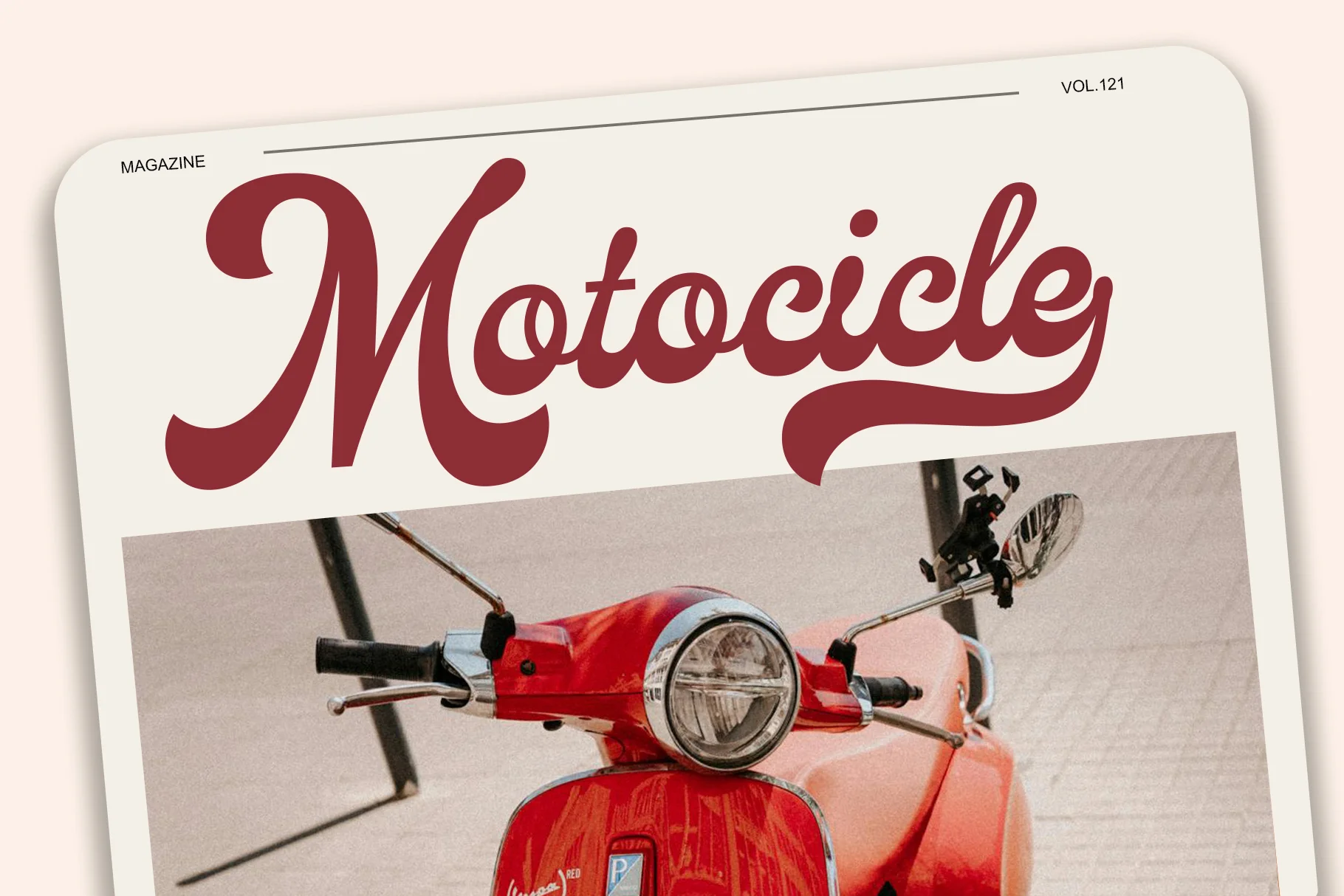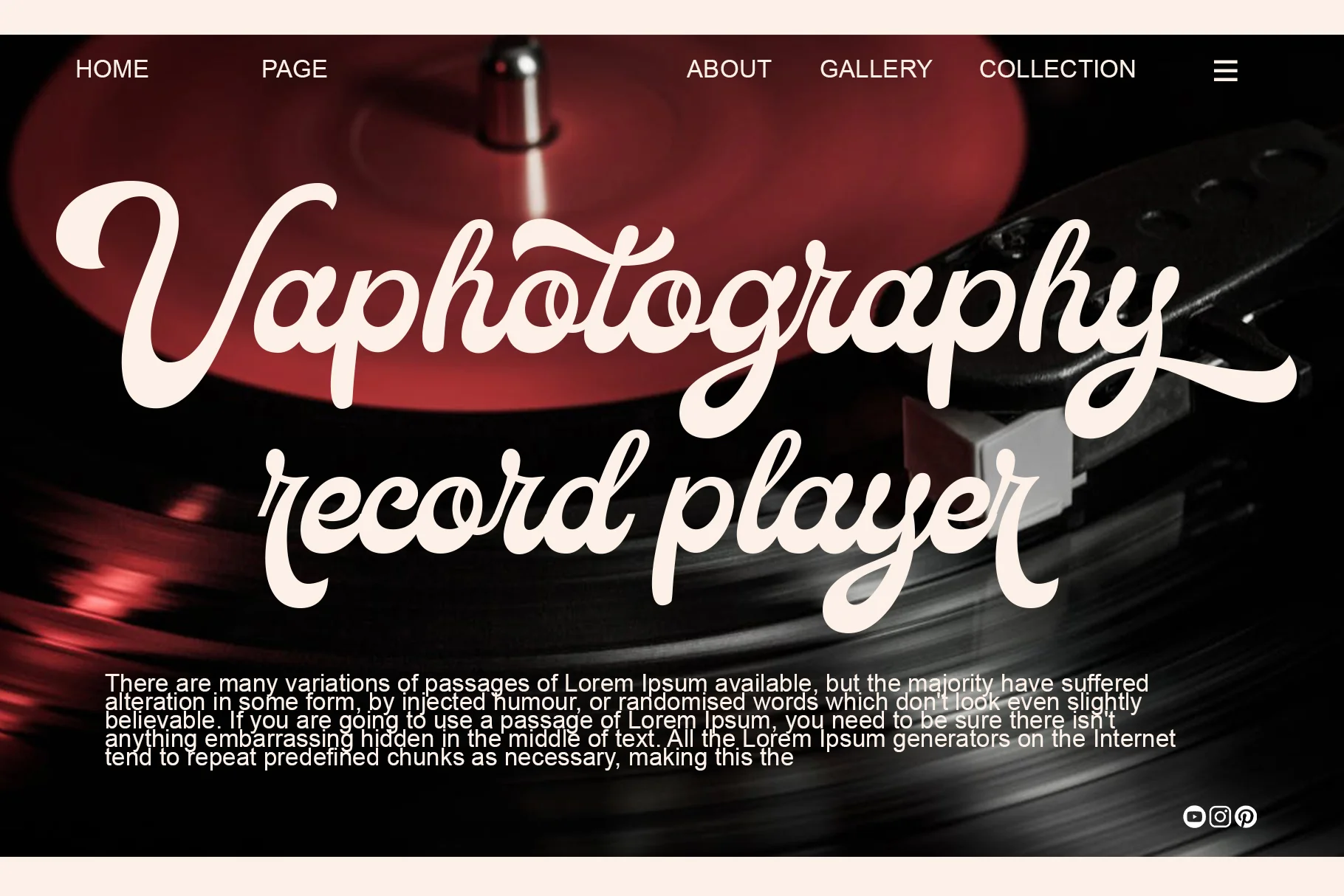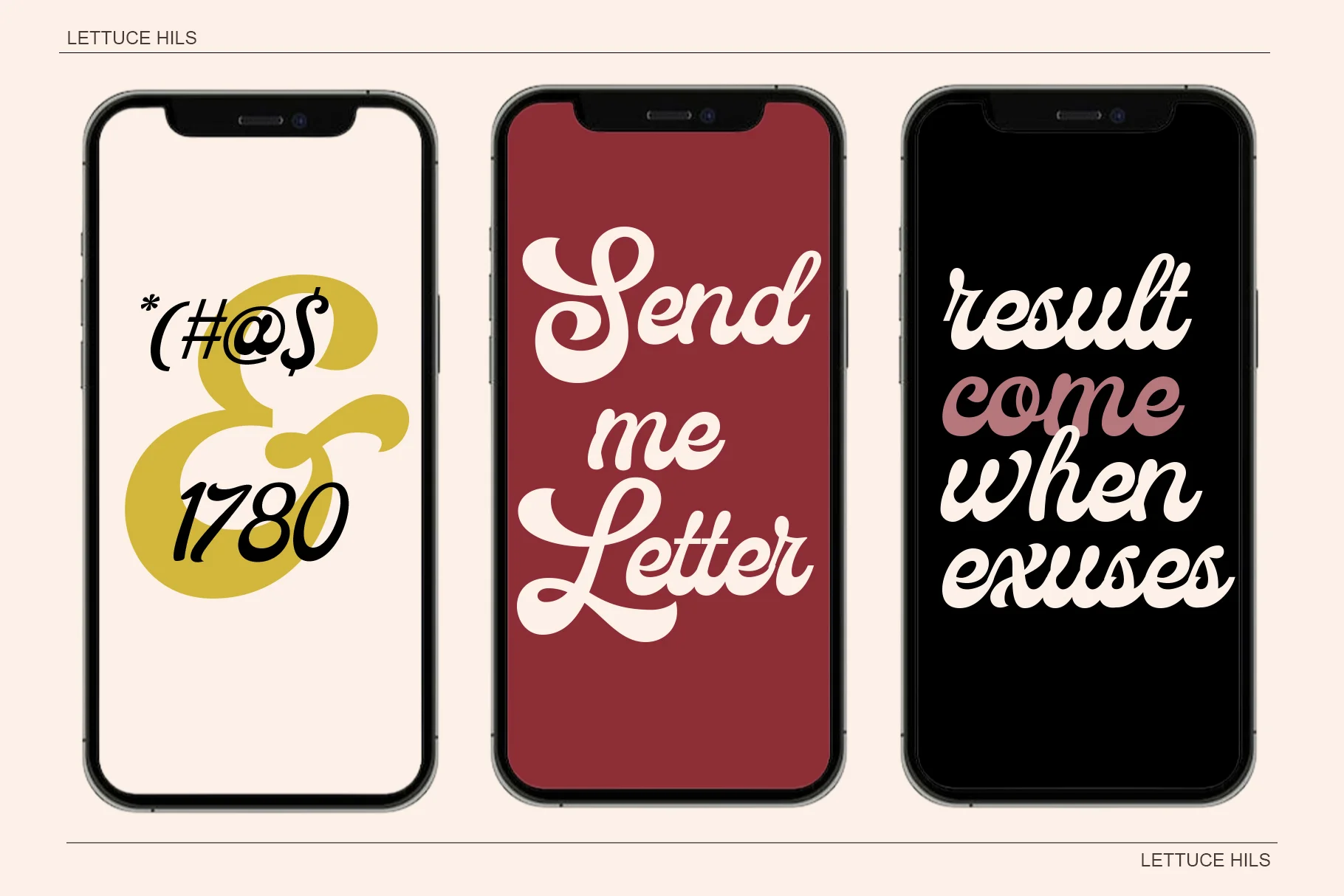
Lettuce Hills
Lettuce Hills is a dramatic and graceful beauty fancy script. With its eye-catching swashes and rich alternate stylistic features, this font is perfect for design projects that aim to exude luxury, beauty, and strong personality.
It is perfect for beauty product branding, luxury logos and packaging, elegant wedding invitations, fashion magazine headers, inspirational quotes, or merchandise that requires a feminine and sophisticated touch.
- Uppercase and Lowercase – Complete range of letter cases for diverse uses.
- Numerals – Includes numbers for various creative needs.
- Functional – Designed for efficiency and aesthetic appeal.
- Multilingual Support – Includes characters for multiple languages.
- Stylistic Variations – Offers creative style options.